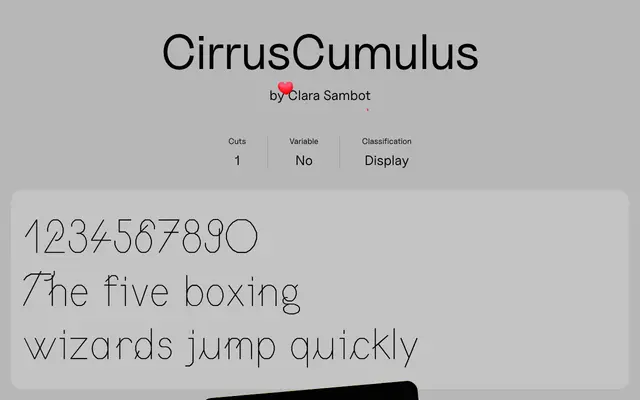
CirrusCumulus
A single-cut display face by Clara Sambot, available free under the SIL Open Font License for commercial and personal use.
A display typeface by Clara Sambot offered in one cut with no variable axis. Released under the SIL Open Font License 1.1, it permits commercial use, modification and redistribution with conditions. Its classification as Display signals it is built for large-scale headline work rather than extended reading.
Classified as Display by the foundry; a single-cut decorative face intended for headlines and large-scale use rather than body text.